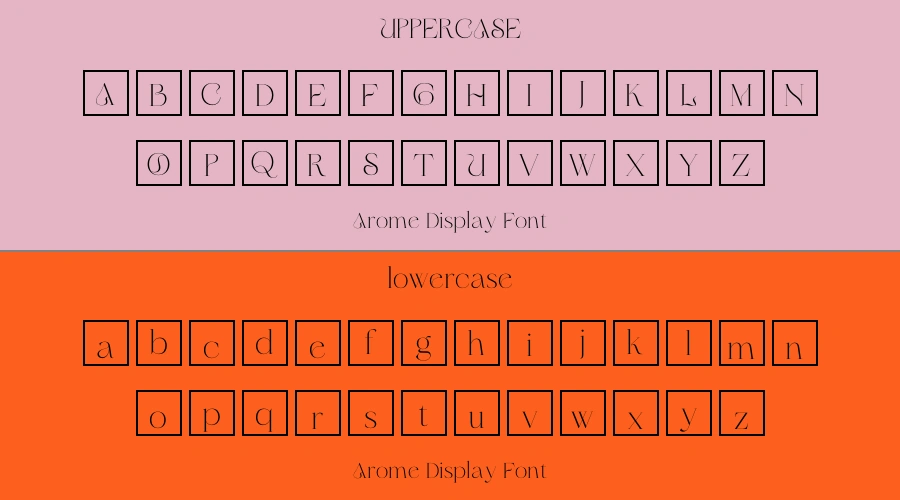
About Arome Display Font
Arome Display Font stands out for its distinctive combination of exaggerated serifs and enduring style. Ideal for brand identities, it provides the originality and consumer connection that professional projects demand. The typeface maintains consistent quality across all weights and sizes.
Key features include refined harmonious shapes and practical decorative caps, enhancing typographic expression. In marketing collateral applications, Arome Display Font demonstrates exceptional detail preservation. The joint detail and research value contribute to its distinctive character and professional appeal.